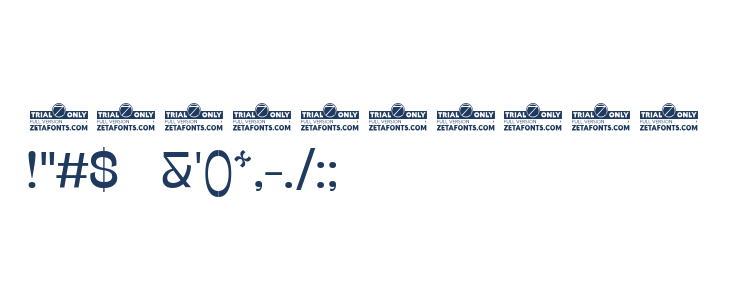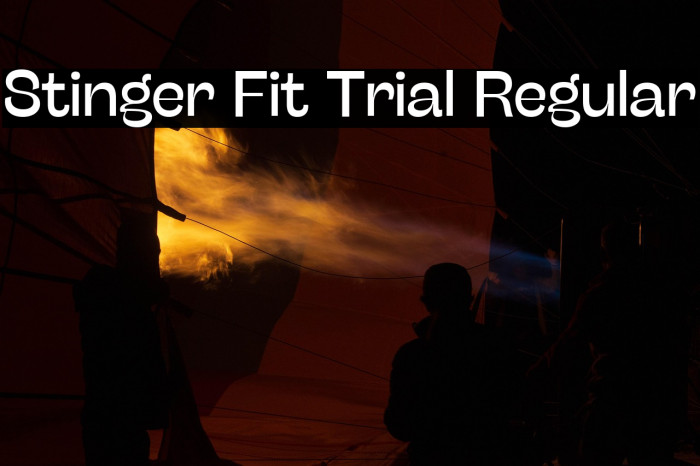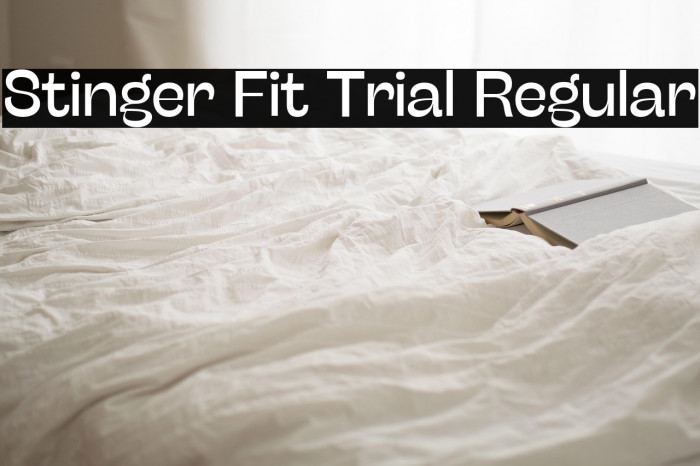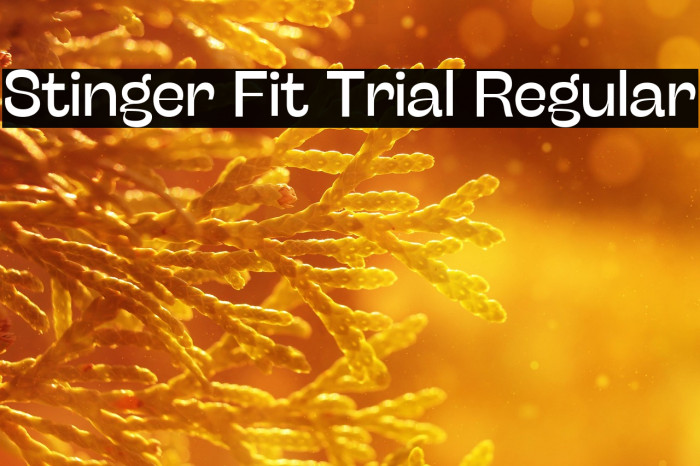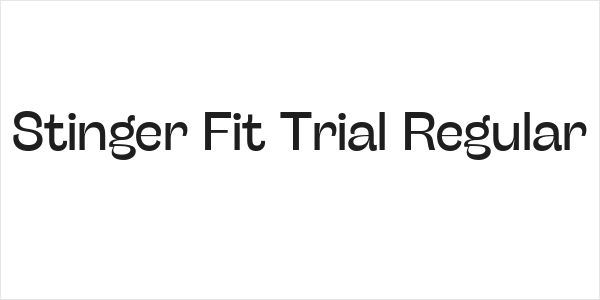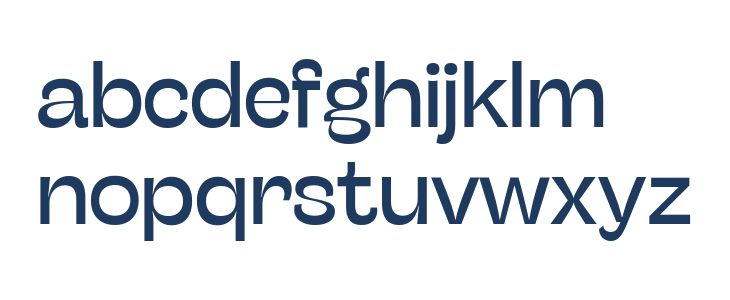
Stinger Fit Trial Regular Font
Stinger Fit Trial Regular Description
This font features a clean and modern sans-serif design with a geometric structure. The characters are well-balanced with uniform stroke widths, providing a harmonious and professional appearance. The uppercase and lowercase letters maintain a consistent style, enhancing readability. The numerals and special characters are designed to match the overall aesthetic, ensuring versatility across different applications. The font's simplicity and clarity make it suitable for a wide range of design projects.
| Proposed Projects | Ideal for branding, web design, advertising, and editorial projects. |